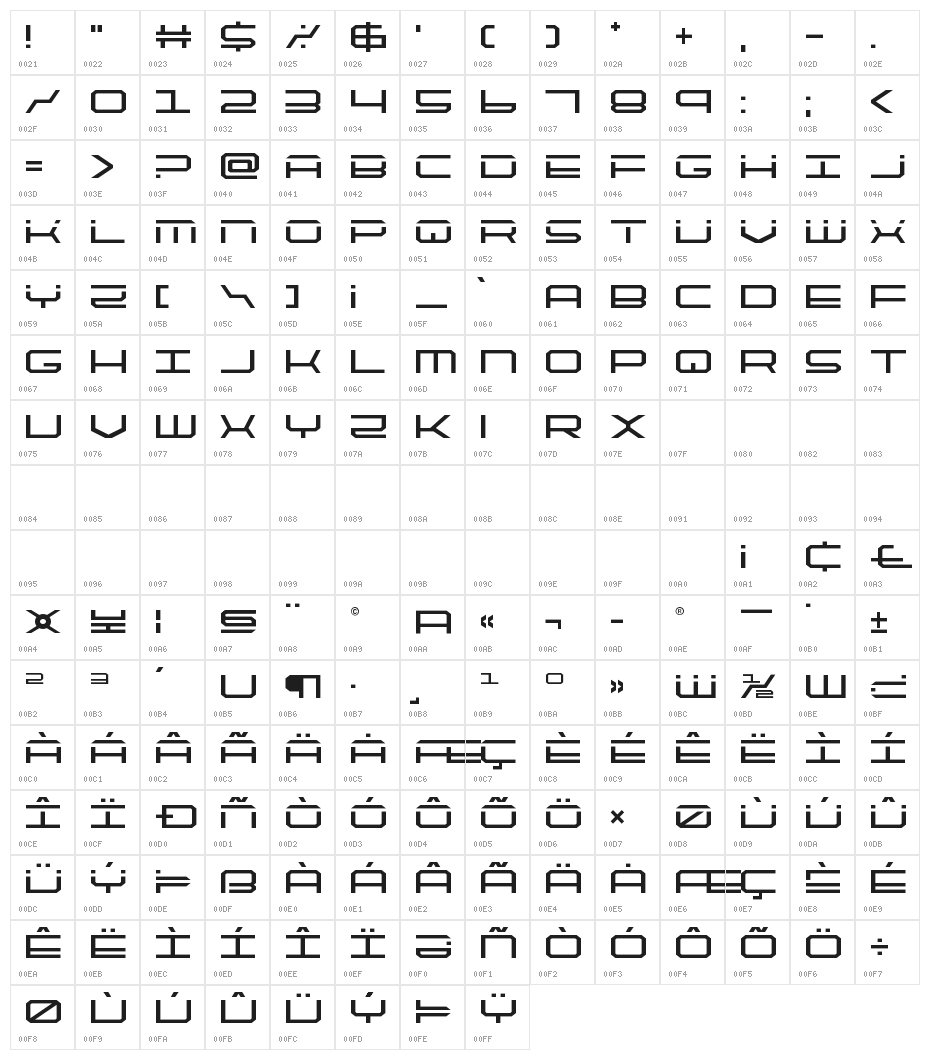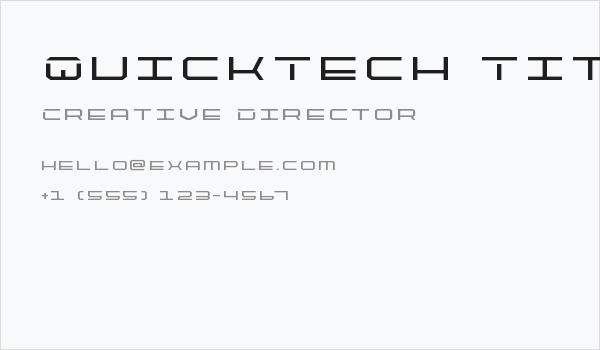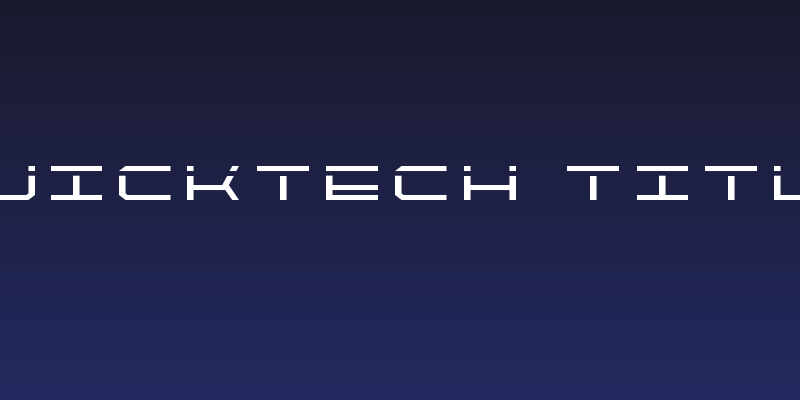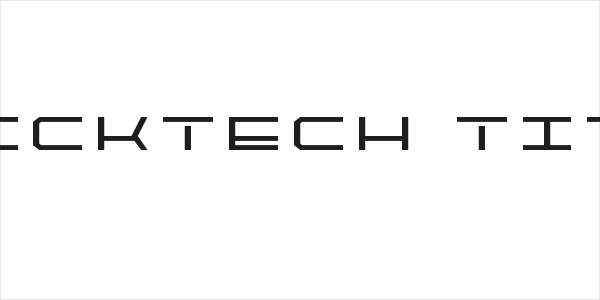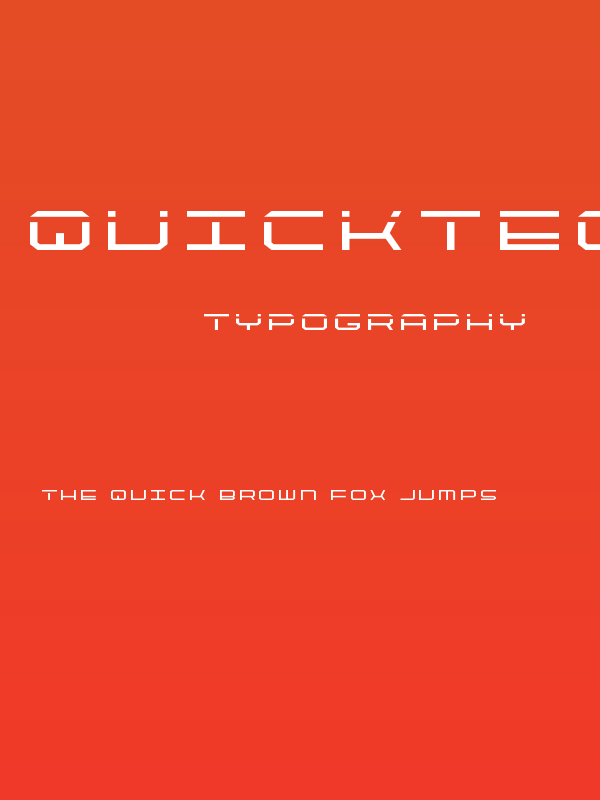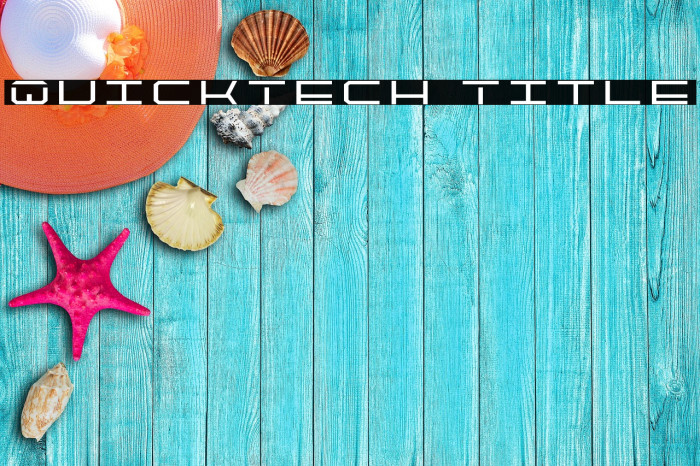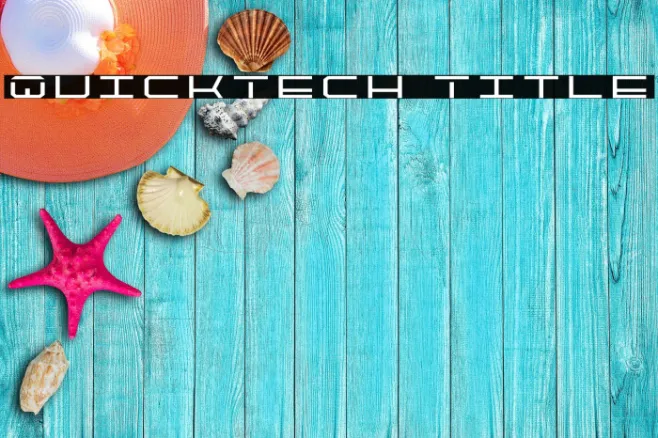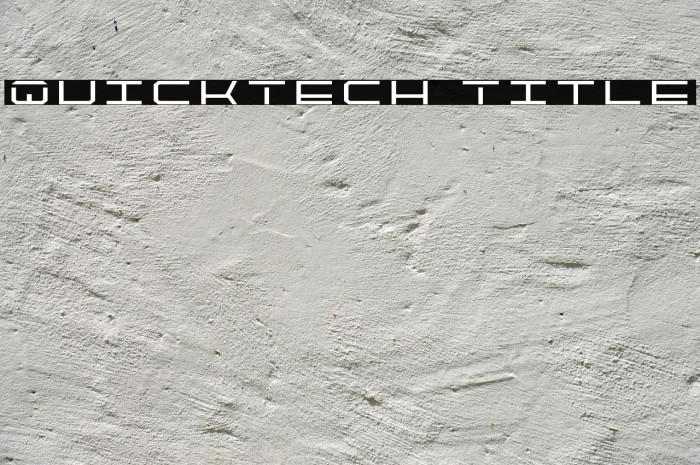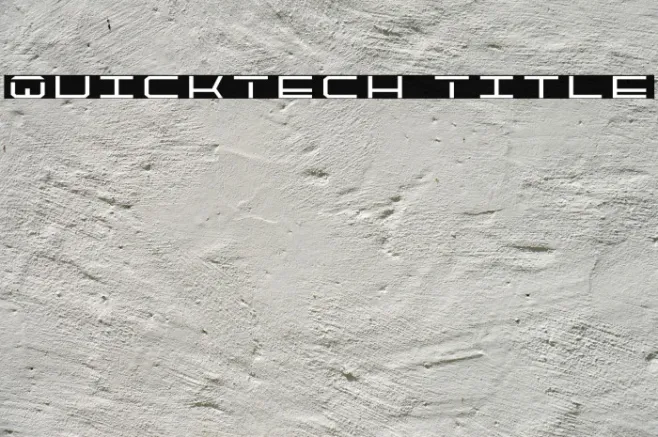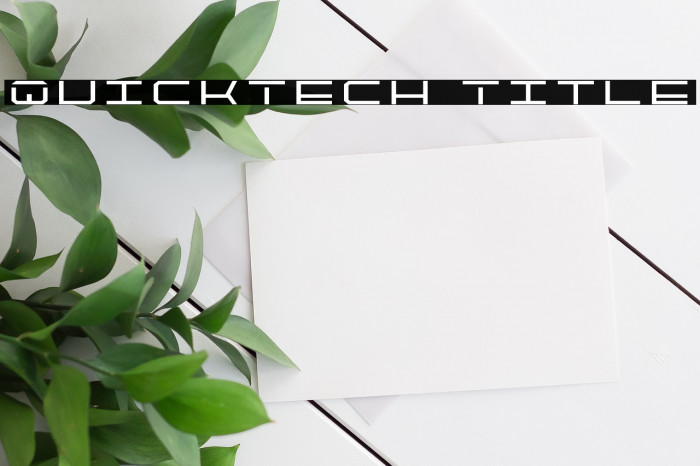
QuickTech Title Font
This font features a futuristic and geometric design, characterized by its angular and block-like letterforms. The uppercase and lowercase letters maintain a consistent height, creating a uniform appearance. The numerals and special characters follow the same design principles, ensuring a cohesive look across all glyphs. The font's structure is clean and precise, with sharp edges and a technical aesthetic that suggests modernity and innovation. Its unique style makes it suitable for projects that require a contemporary and tech-savvy appearance.
| Proposed Projects | Ideal for technology branding, sci-fi movie posters, video game interfaces, and modern web design. |